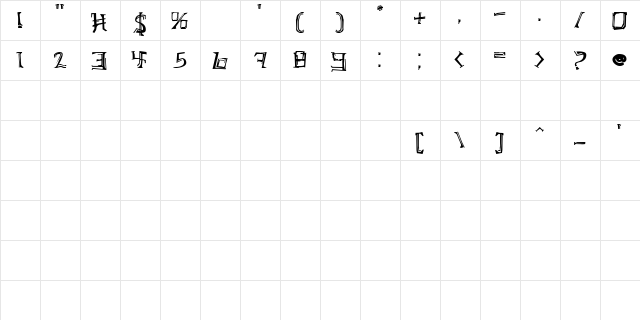
BN Grafity Regular
Design Context for BN Grafity Typeface
BN Grafity is a composed and adaptable typeface that performs quietly and consistently across a wide range of design contexts.